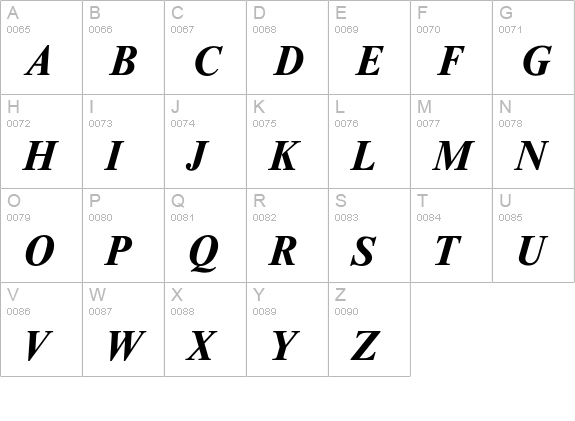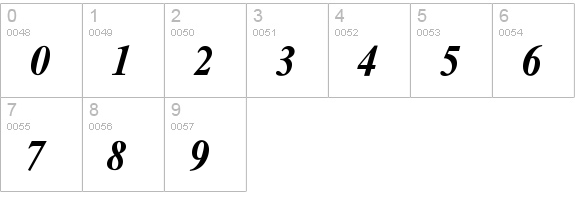
Riccione-DemiBoldIta font is a stunning display font that exudes elegance and sophistication. Its strong and bold letterforms make a powerful statement, capturing attention and leaving a lasting impression. This font is perfect for headlines, logos, and any design project that requires a touch of modernity and refinement. What sets Riccione-DemiBoldIta font apart is not only its impeccable design but also the fact that it is freely available to download at FontsMarket.com. This means that designers, creatives, and anyone in need of a high-quality display font can easily access it without any restrictions. With its versatility and accessibility, Riccione-DemiBoldIta font opens up a world of possibilities, allowing users to create visually stunning and professional designs without breaking the bank. Whether you are a seasoned designer or just starting out, Riccione-DemiBoldIta font is a must-have in your font collection. Its sleek curves, clean lines, and attention to detail make it a standout choice for any project. From websites to print materials, this font will elevate your design to new heights. So why wait? Download Riccione-DemiBoldIta font today from FontsMarket.com and unleash your creativity. With this font by your side, you have the power to bring your vision to life, all while enjoying the freedom of a high-quality font that won't cost you a dime.